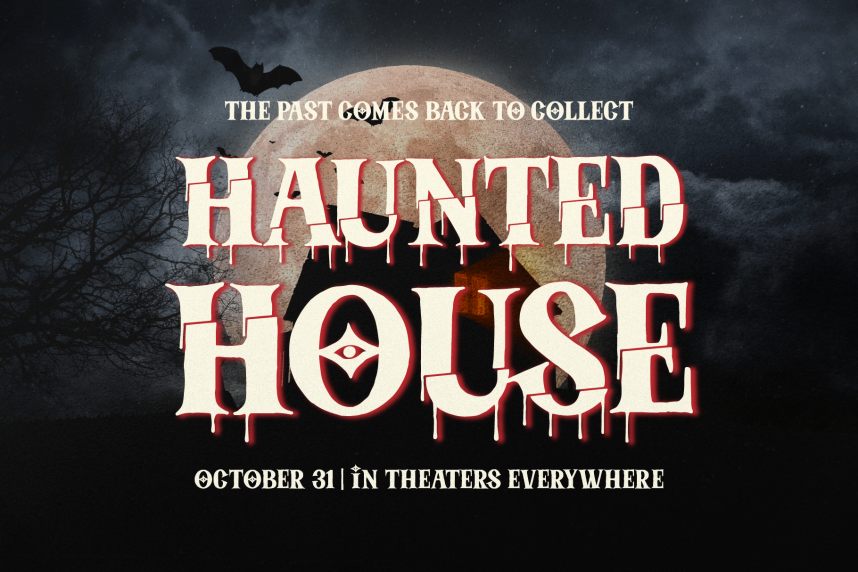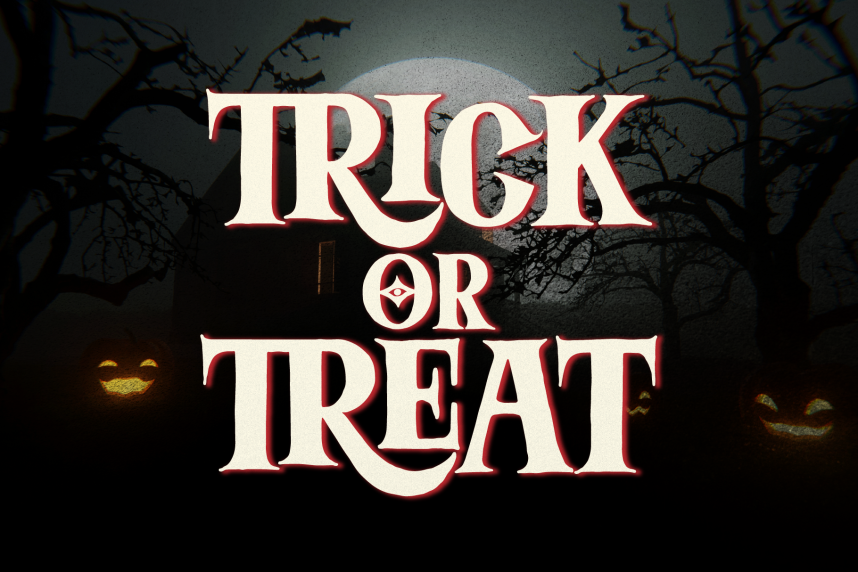
Sliced Phantom Font Free Download
Sliced Phantom Font is a striking horror-themed display typeface that brings a chilling, eerie aesthetic to any design project. Its bold, angular letterforms feature sharp, sliced details that evoke a sense of danger and mystery, making it perfect for creating tension and intrigue.
This versatile font is ideal for horror movie posters, video games, book covers, and any design that demands a dark and haunting presence. It combines global reach with a distinctly spooky personality.